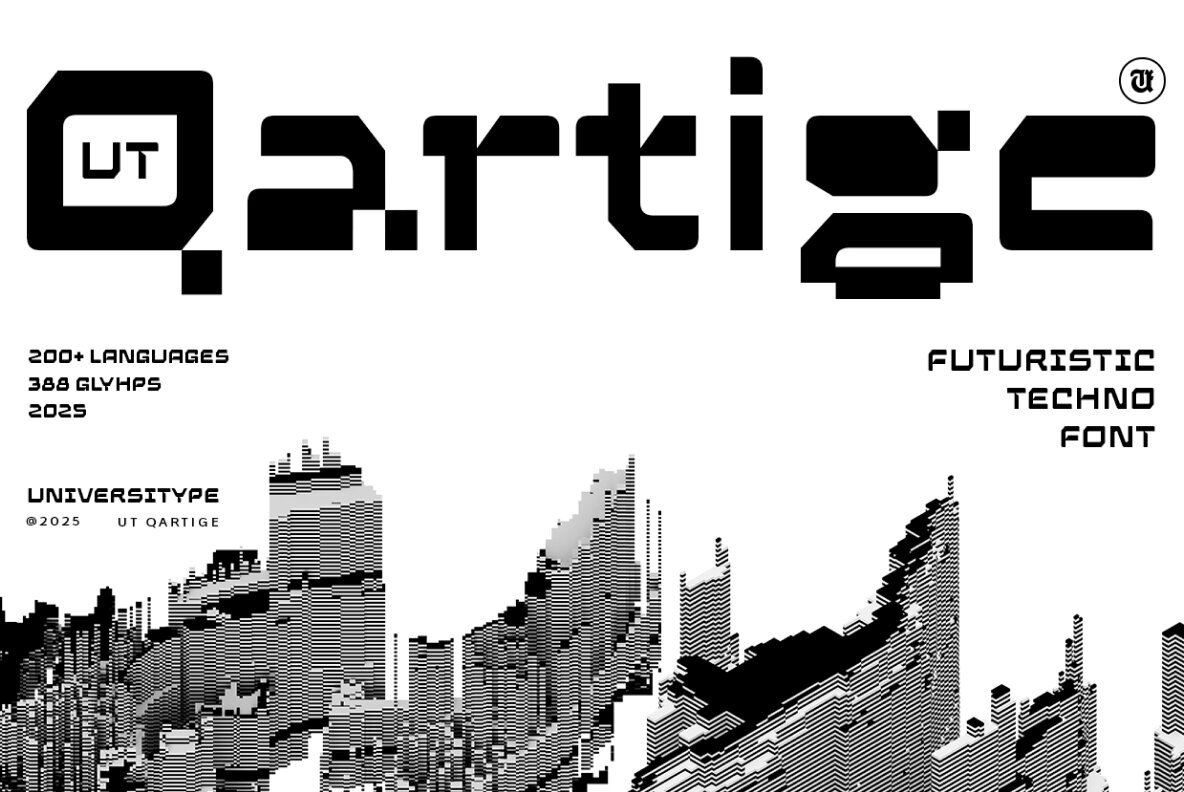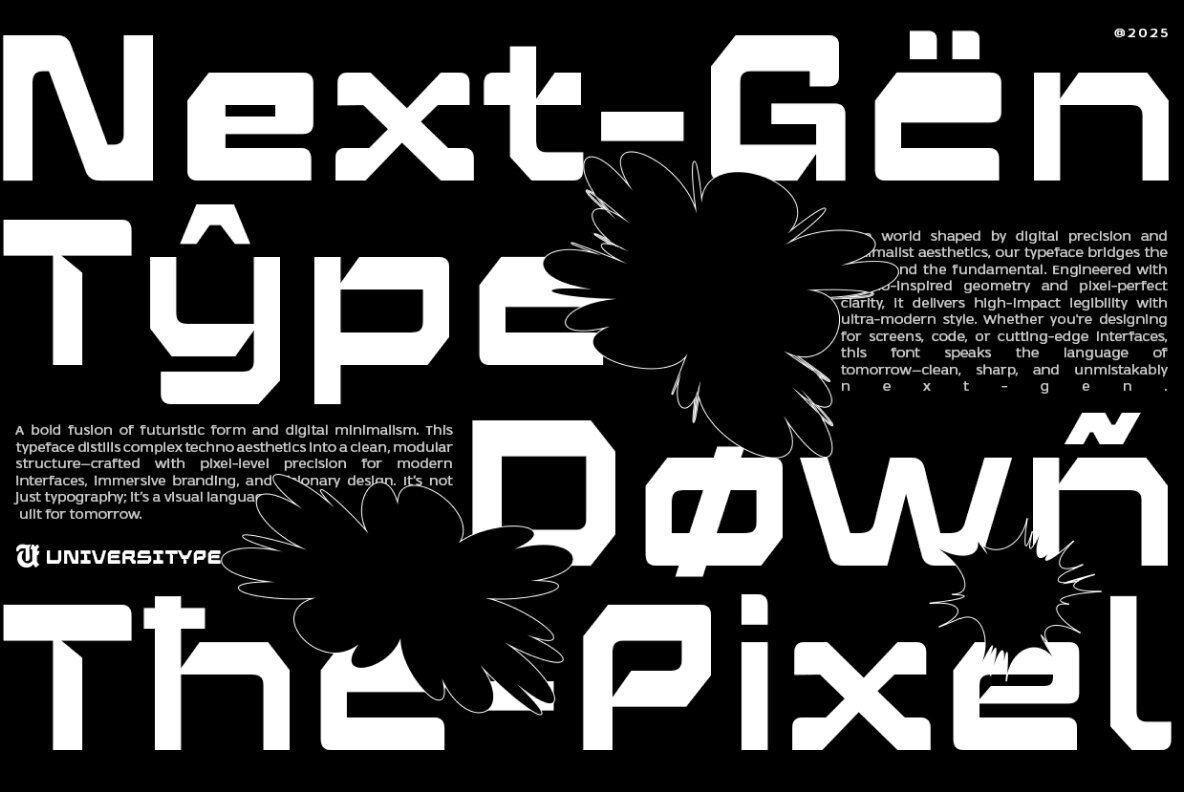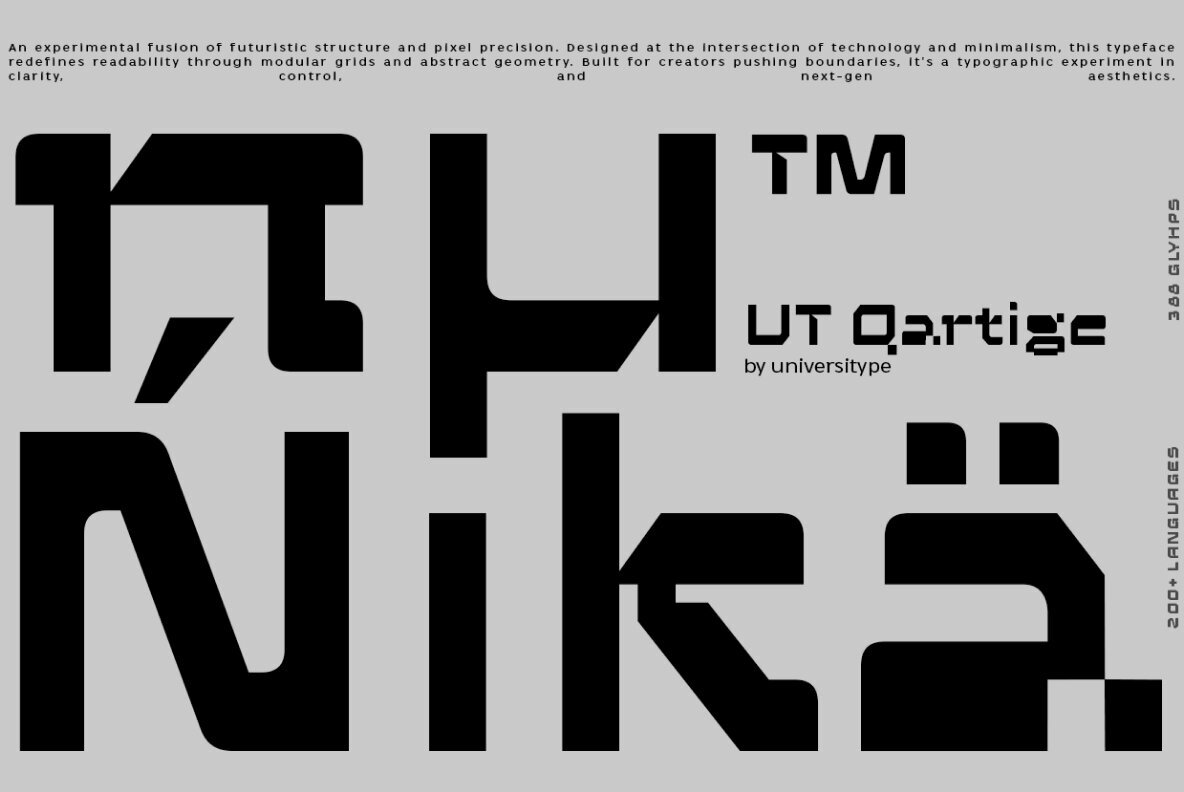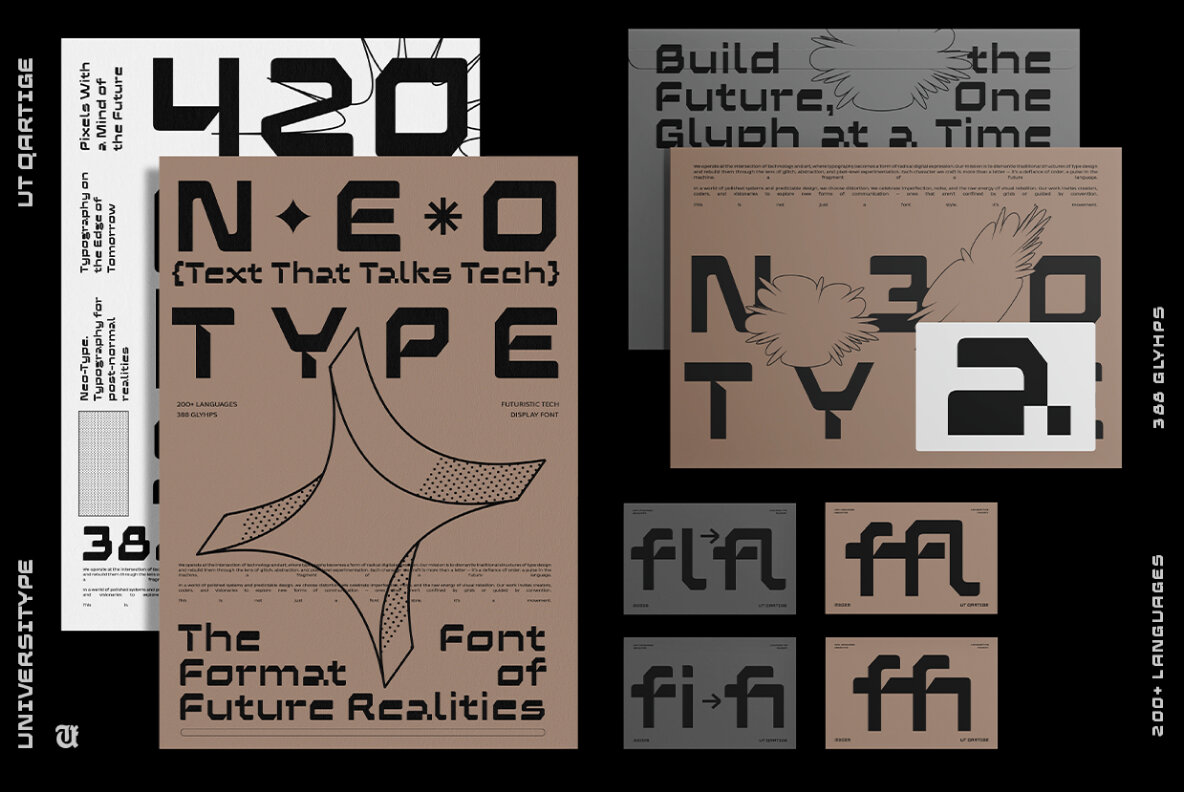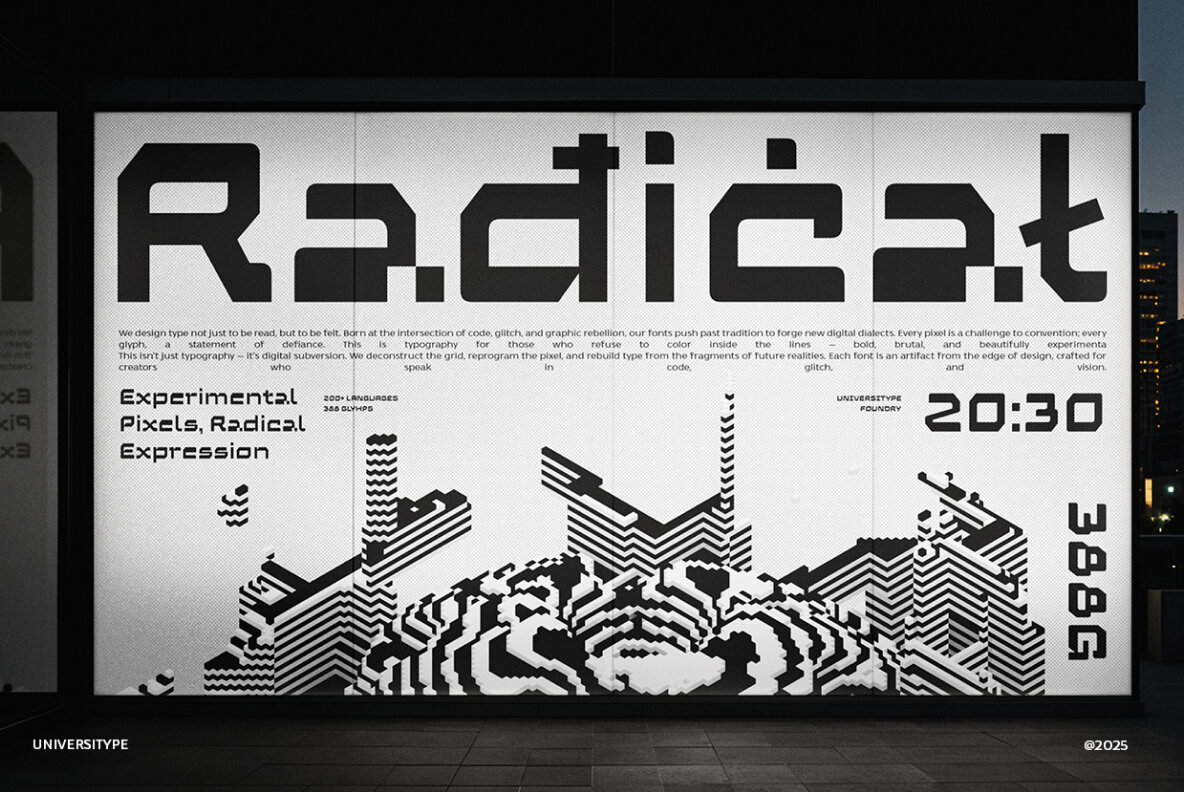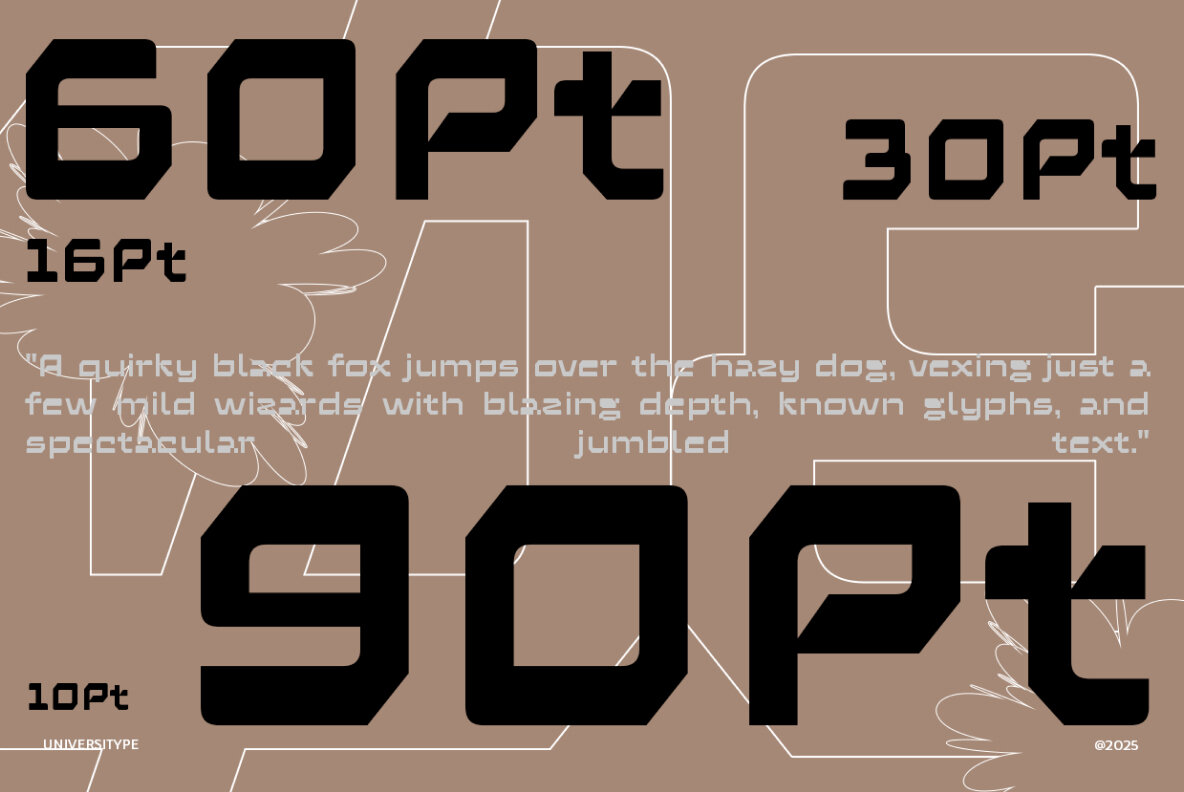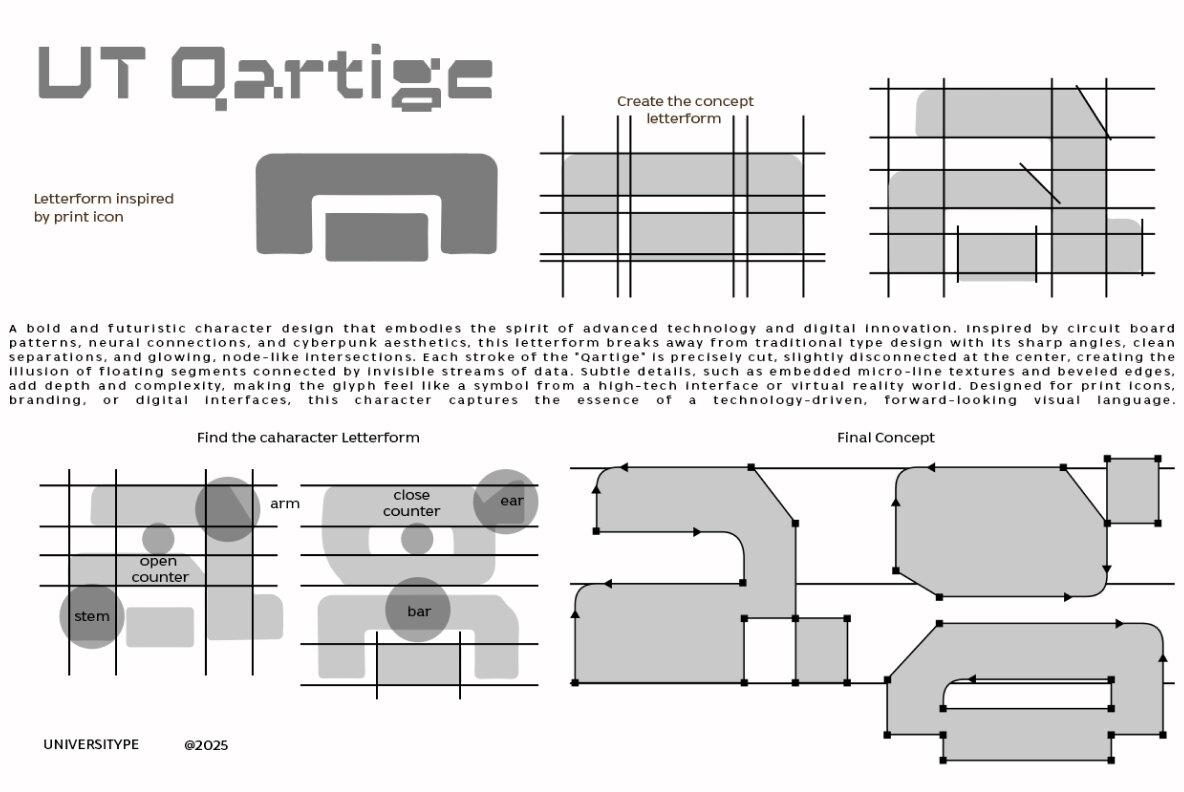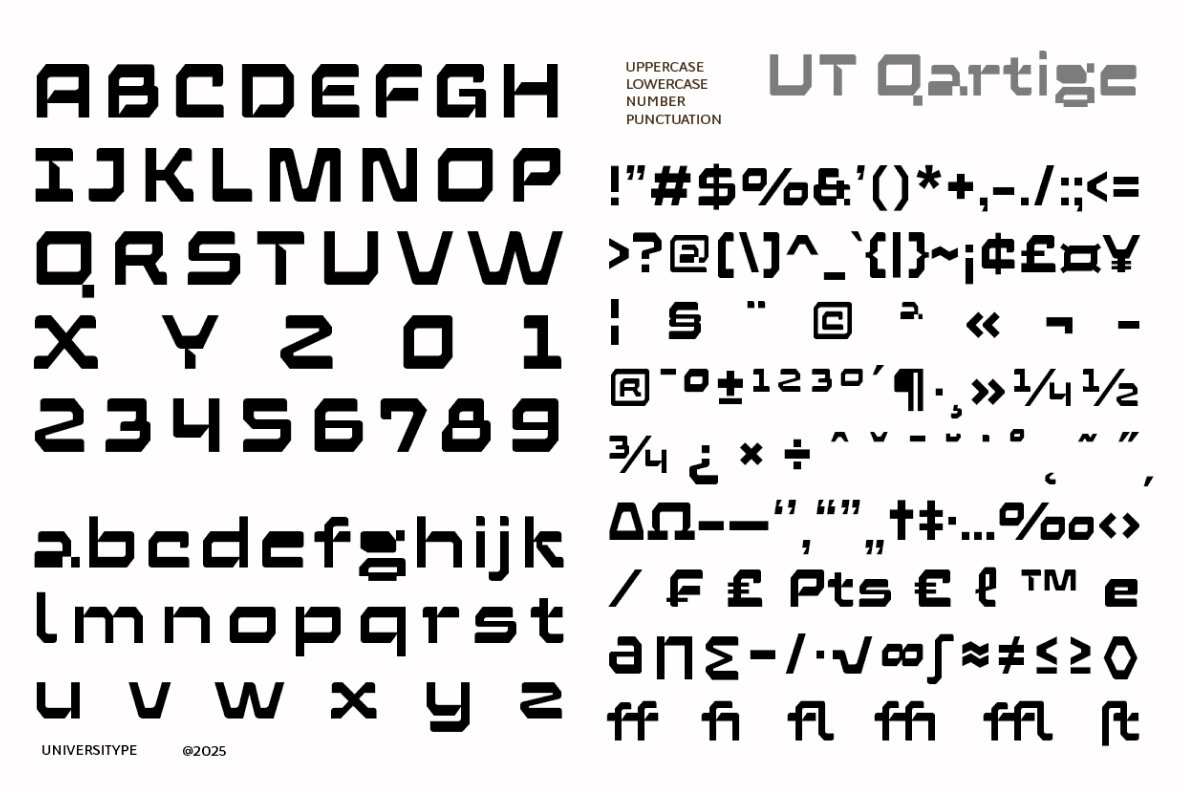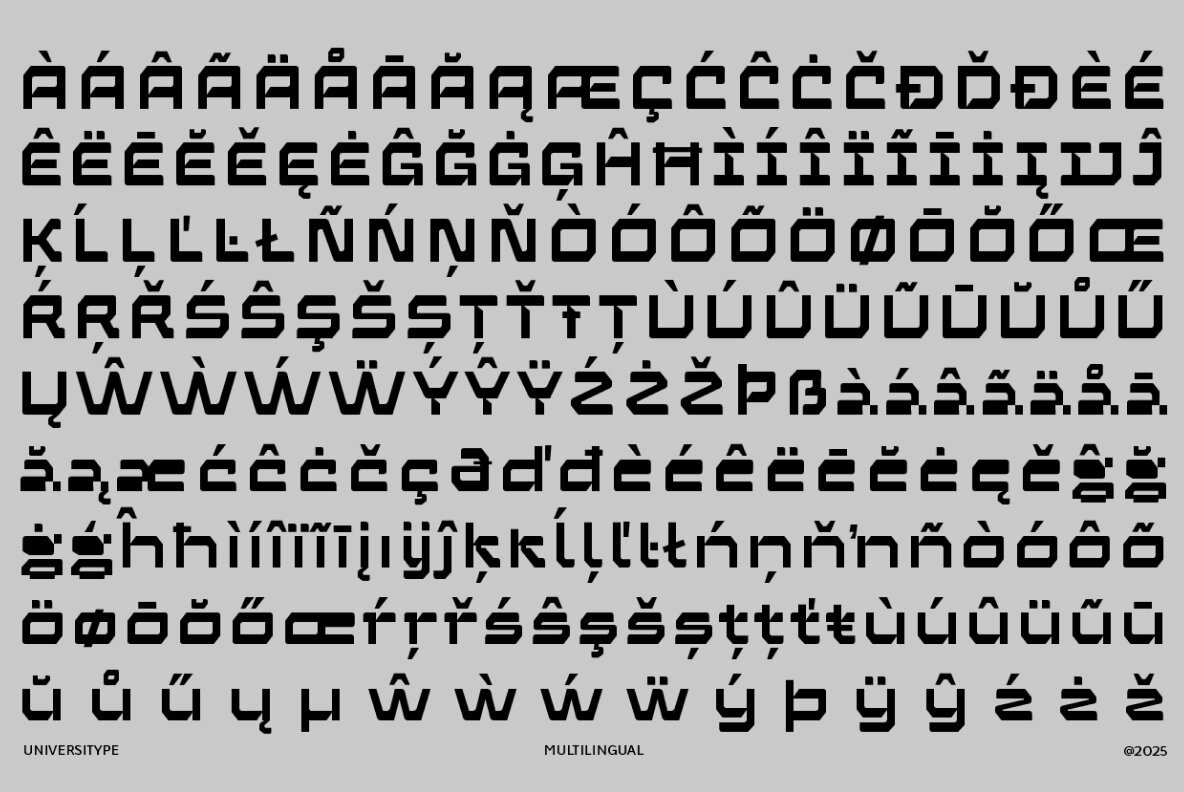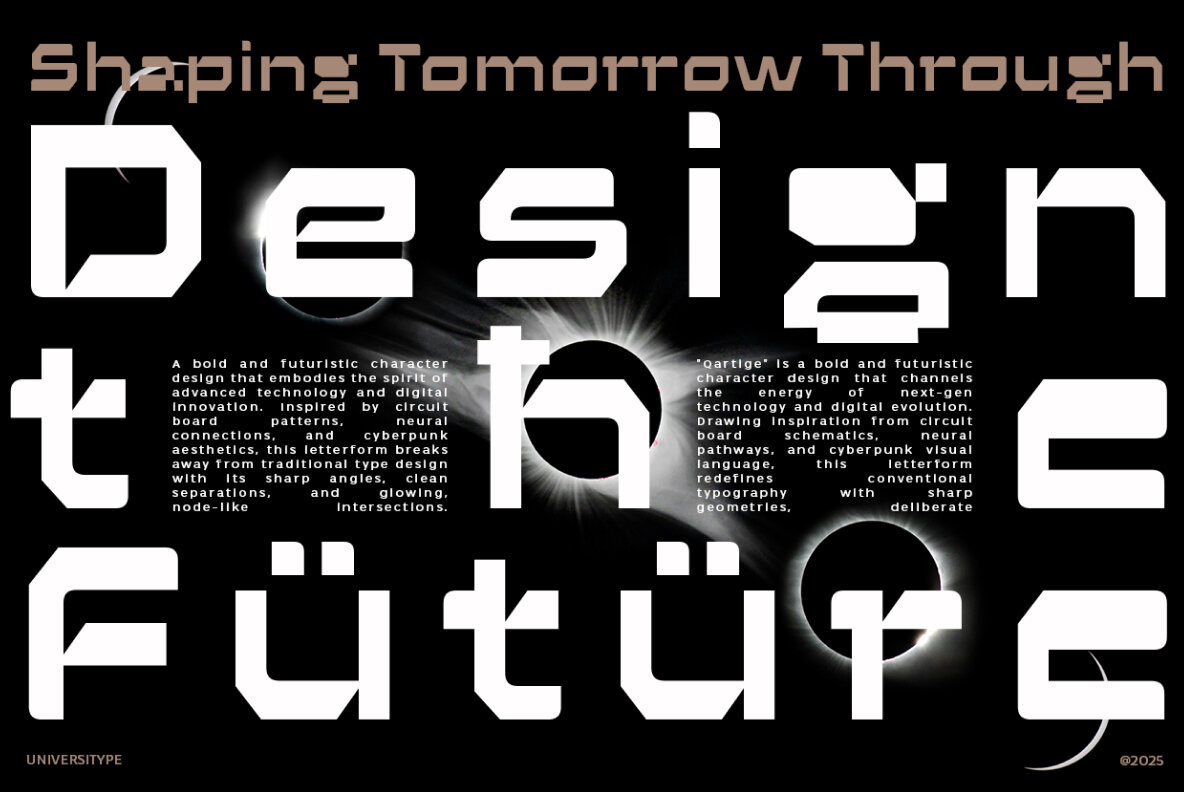
UT Qartige stands at the intersection of machine accuracy and digital rebellion, encapsulating a techno-futuristic aesthetic. With its sharp, angular cuts and micro-line illusions, this bold font channels a cyberpunk spirit ideally suited for a digital-native environment. The letterforms, reminiscent of a moving data stream, are clean, precise, and full of distinct character. The typeface appeals to a diverse range of creative professionals—graphic designers, tech startups, sci-fi enthusiasts, game developers, and UX/UI designers—seeking a forward-looking font that makes an immediate impact. Inspired by the transformation of the humble 'print' icon into a core glyph, UT Qartige is a homage to circuitry and cyberpunk aesthetics. This typeface draws on the patterns of circuit boards, neural maps, and the glitchy allure of dystopian cities, reflecting the evolution from analog beginnings to a future dense with pixels. Whether you're designing for a world set in 2049 or today's digital landscape, UT Qartige integrates seamlessly.UT Qartige: A Techno-Futuristic Typeface